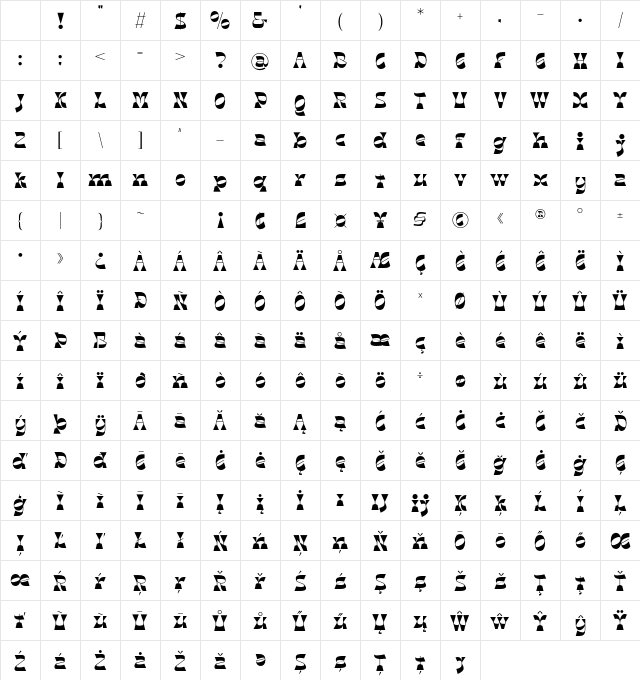
Complete Retro Sugar - Demo Version Black Regular glyph index. Displaying only characters natively supported by Retro Sugar - Demo Version Black Regular font.
Retro Sugar - Demo Version Black wears its vintage influences proudly, with letterforms that recall mid-century signage, classic packaging, and nostalgia-driven design.
Font Pairing: Combine Retro Sugar - Demo Version Black with a simple slab or neutral sans - period-accurate companions reinforce the vintage feel without competing for attention.
Pro Tip: Lean into Retro Sugar - Demo Version Black's period character by pairing it with aged paper textures, muted colour palettes, and vintage illustration styles.